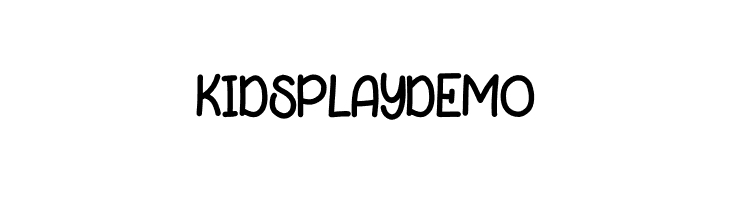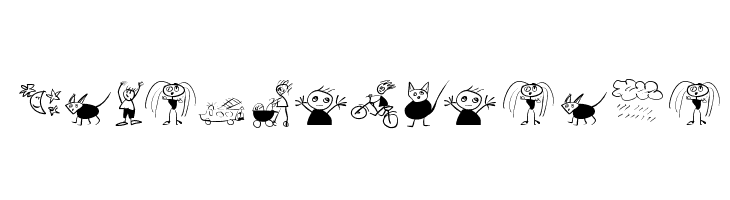
A playful, hand-drawn font with irregular strokes and a whimsical style.
Whimsical, childlike dingbat font with playful illustrations.
A playful, rounded font with a hand-drawn, friendly appearance.
A playful, rounded font with a hand-drawn, whimsical style.
A whimsical, cartoon-style font featuring playful illustrations perfect for children's projects.
Whimsical dingbat font with playful children's illustrations.
A playful, handwritten font with a whimsical and friendly style.
A playful, hand-drawn font with bold, rounded characters.
A playful, hand-drawn font with rounded, bold characters.